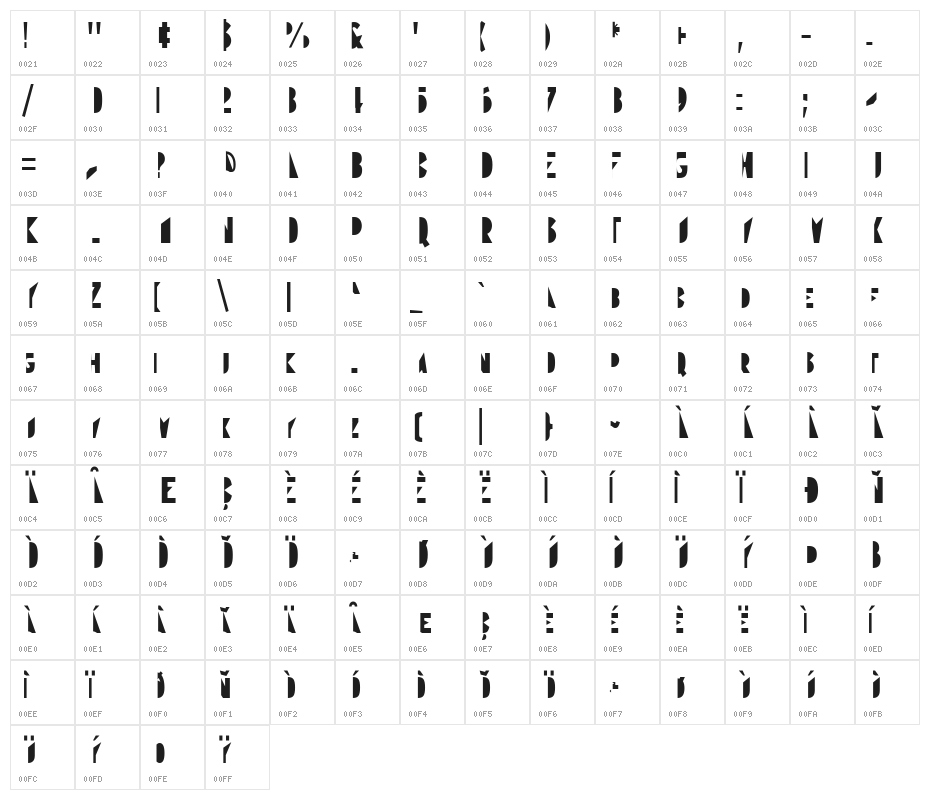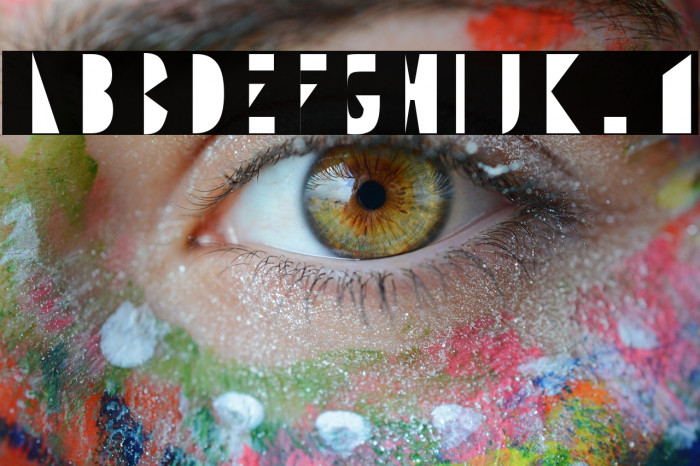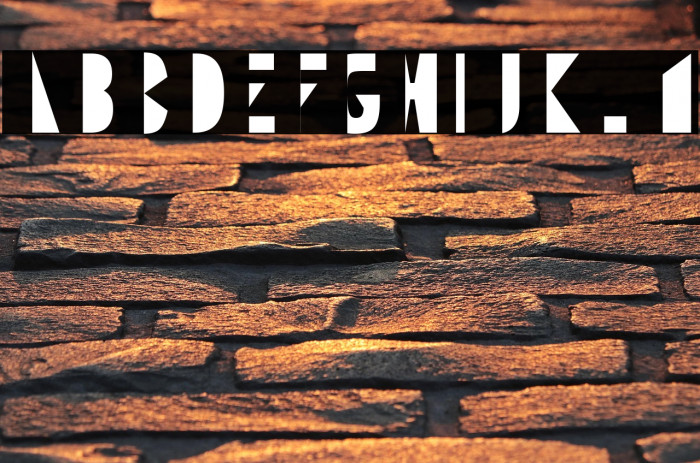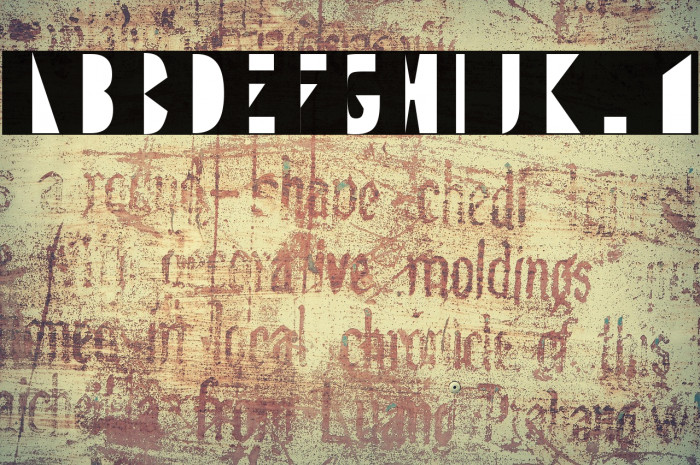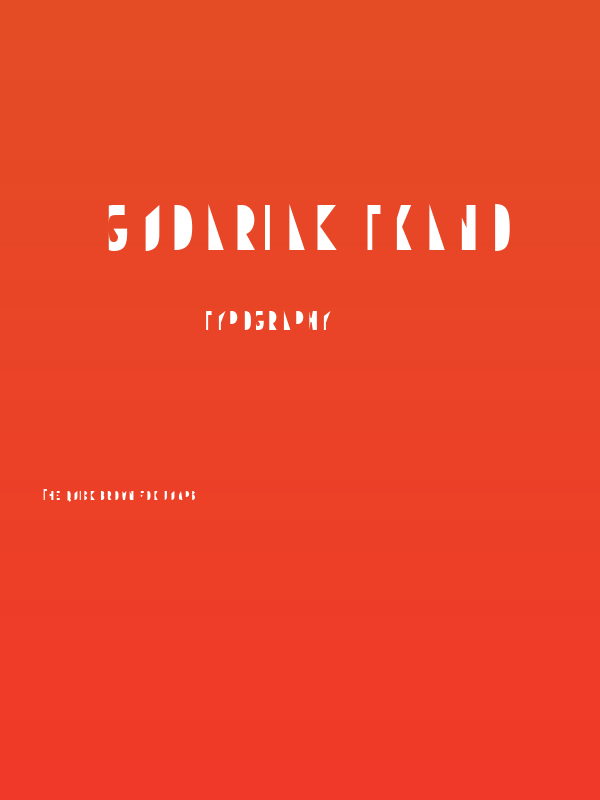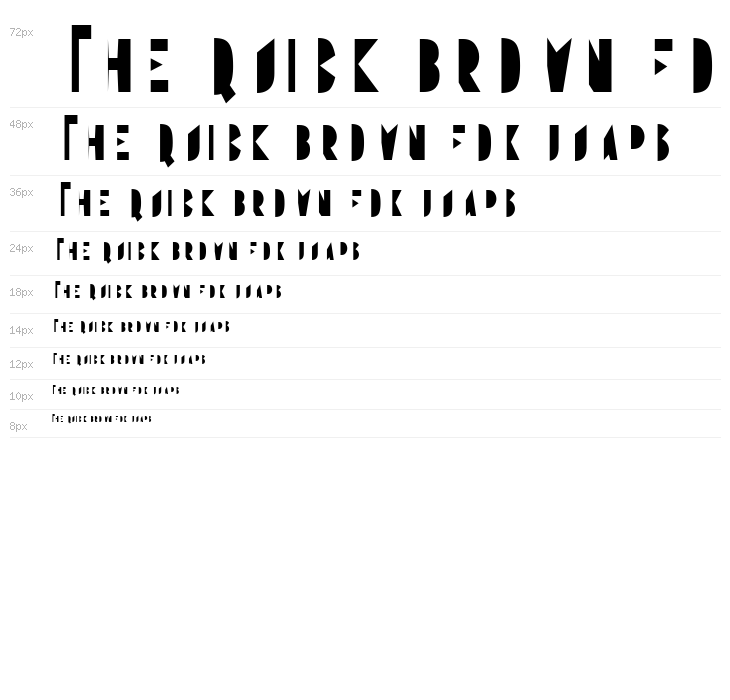
Gudariak txano Font
Gudariak txano Description
This font features a bold, geometric design with sharp angles and a modern, abstract aesthetic. Each character is crafted with a unique combination of solid shapes and negative space, creating a striking visual impact. The uppercase and lowercase letters maintain a consistent style, while the numerals and special characters complement the overall design. The font's distinct appearance makes it ideal for projects that require a contemporary and artistic touch.
| Proposed Projects | Ideal for branding, posters, album covers, and modern art projects. |